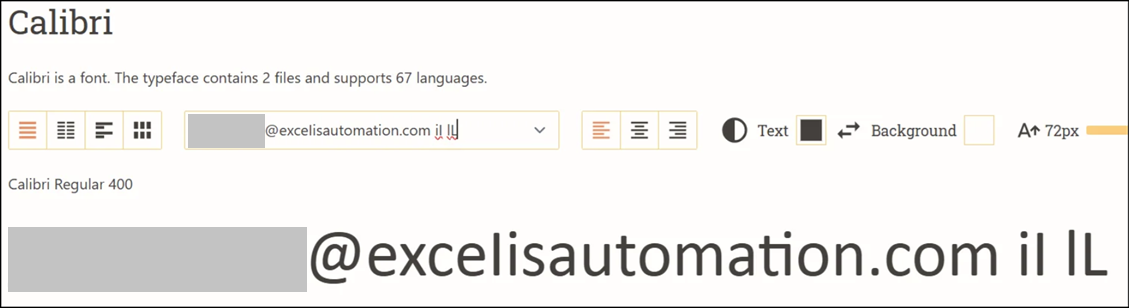
Outlook font makes it difficult for user's to detect phishing email addresses
The default font in Outlook desktop app and web, make it more difficult for everyday users to easily detect a phishing email when the domain is using letters that cannot be distinguished from one another.
Real example: Excelis Automation is a real company, some phishing group decided to buy the domain "exceiisautomation.com" and when they write emails, they set up their profile to use an uppercase/capital "i" so that it looks like an "L" so that any mail program that uses fonts such as Calibri, Arial, etc., cannot differentiate between them.
If you just look at it (example screenshots below), there is no way to tell that the word is Exceiis unless you copy and paste the email address into notepad or text editor and change the font to something like Courier New, Consolas, Terminal, Verdana, Times New Roman, etc.
Basically, all fonts that do not differentiate the uppercase "i" from the lower-case L, are aiding phishing groups, plain and simple.
This next screenshot is just showing how Calibri (one of the default fonts) makes it difficult to tell the "i" and "L" apart.
And finally, a screenshot showing 4 different fonts that are actually a little better at differentiating the two letters apart, which helps a user distinguish a real domain from a fake one by seeing that.
(one is written as Excelis and one as Exceiis)
You’ve raised a valid point, when certain fonts do not clearly distinguish characters like uppercase “I” and lowercase “l”, it can make it harder for everyday users to identify spoofed or phishing email addresses. The example you shared makes sense, and I completely understand why this is worrying from a security standpoint.